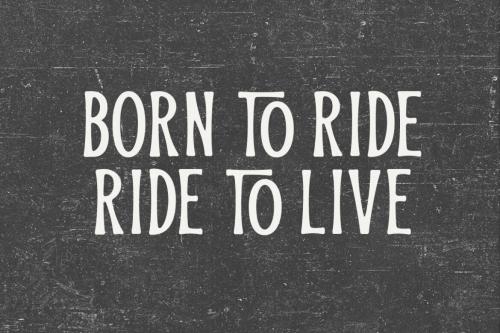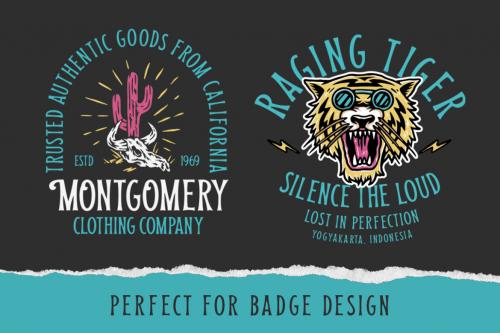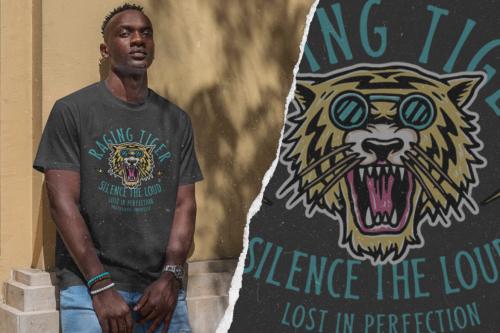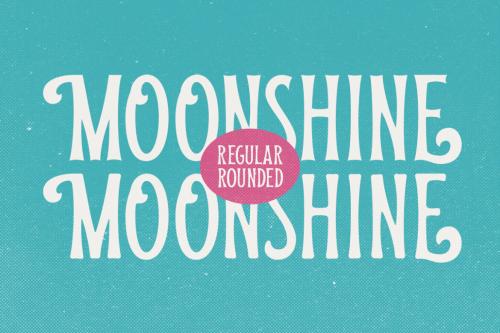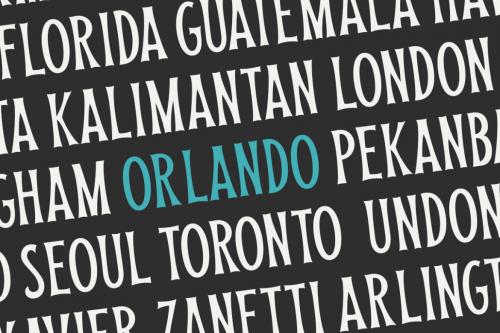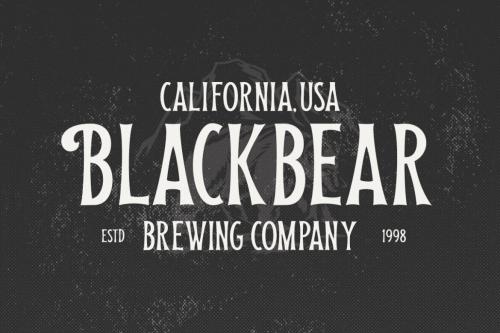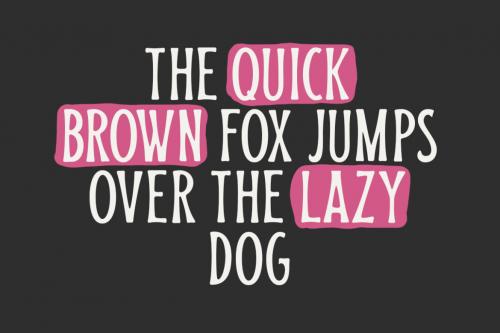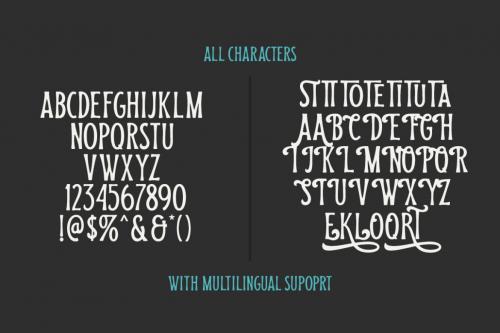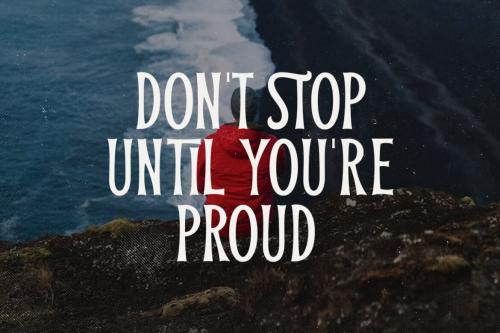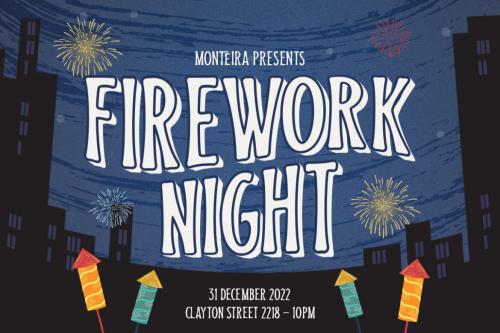
Deeezy - Mortale - Display Font
Mortale is a display font a typeface which is inspired by vintage lettering. Very suitable for for headline, logotype, apparel, invitation, branding, packaging, advertising etc with old school u002F vintage as well as modern theme.